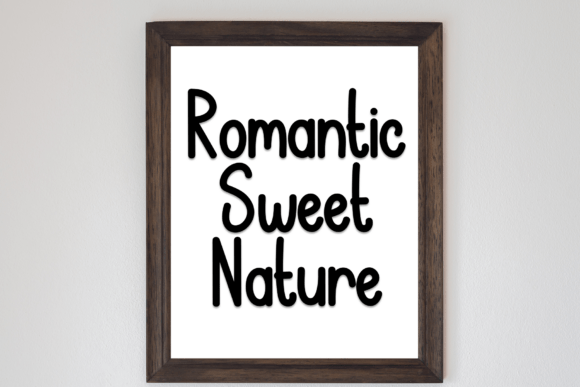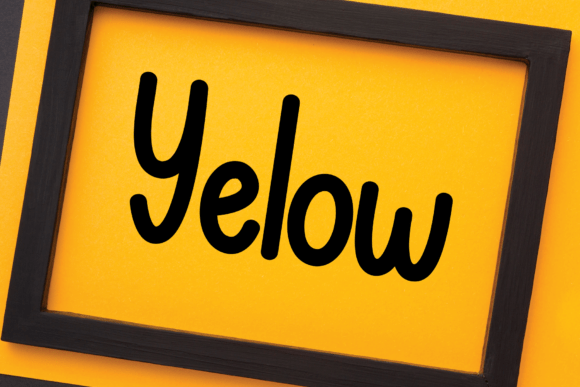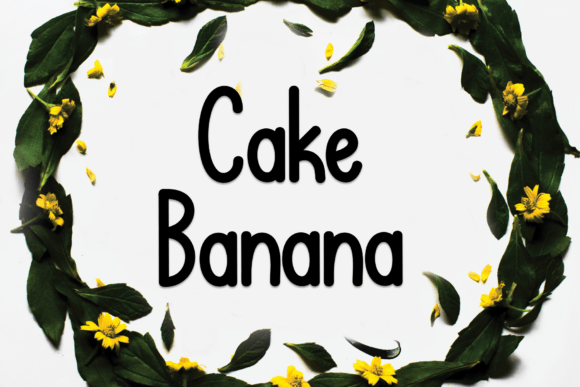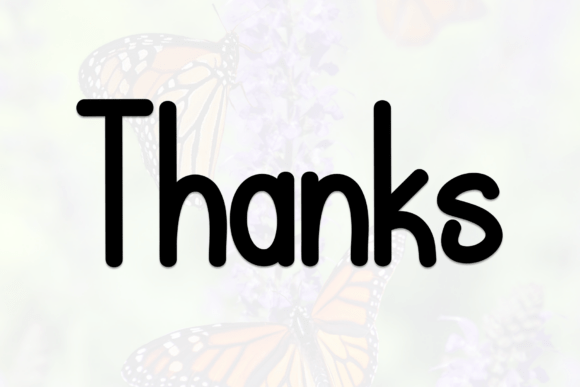
Introduction to Christmas Bold Font Font
Fonts play a crucial role in design, and the Christmas Bold Font font is a typeface that brings both character and versatility to any project. Whether you’re working on a branding project, a website, or a print design, the Christmas Bold Font font offers a unique style that can elevate your work.
Christmas Bold is a handwritten font that looks like it was drawn with a marker.
Having a relaxed and sporty feel, it is very suitable for branding, logos, wedding supplies, greeting cards, fashion, lookbooks, marketing promotions, and whenever you want your design to look luxurious and elegant but still casual .
Key Features of Christmas Bold Font Font
Why Choose Christmas Bold Font Font?
The Christmas Bold Font font is more than just a typeface – it’s a design tool that helps you communicate your message with style and clarity. Its unique character set and versatile design make it suitable for a wide range of applications, from elegant invitations to bold headlines.
With its carefully crafted letterforms and balanced proportions, the Christmas Bold Font font ensures readability and visual appeal across all mediums.
What makes Christmas Bold Font font special?
The Christmas Bold Font font stands out with its unique design, exceptional readability, and versatility across various design applications.